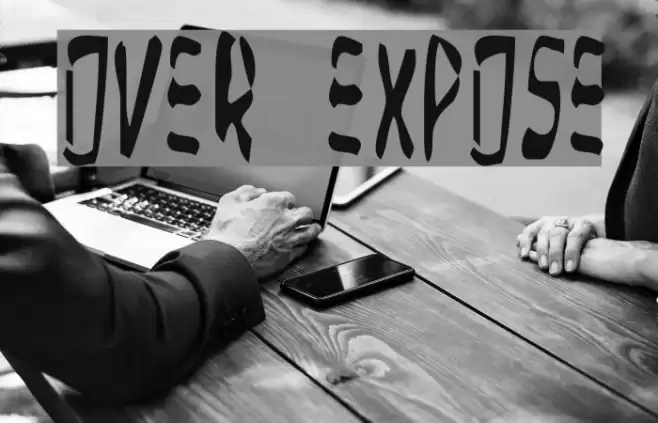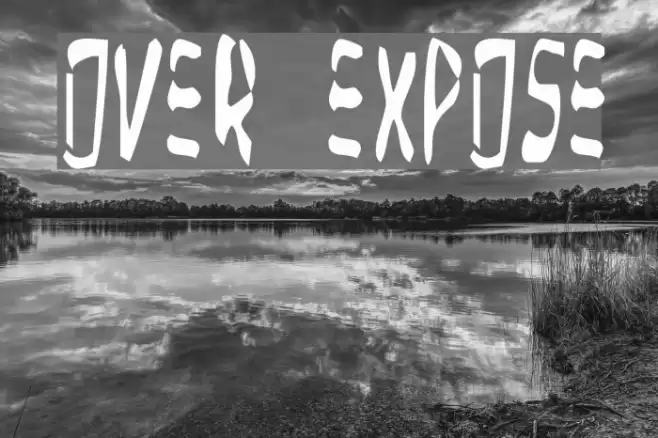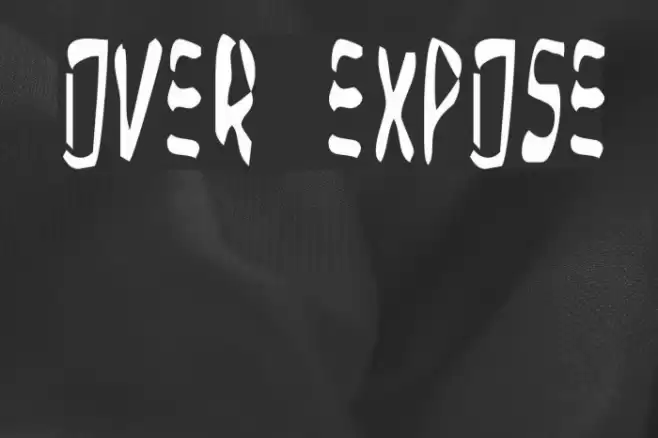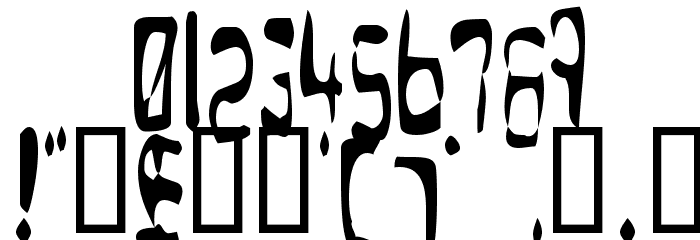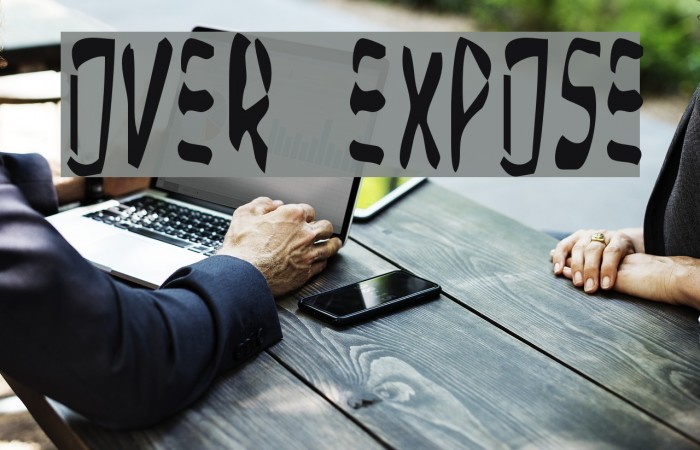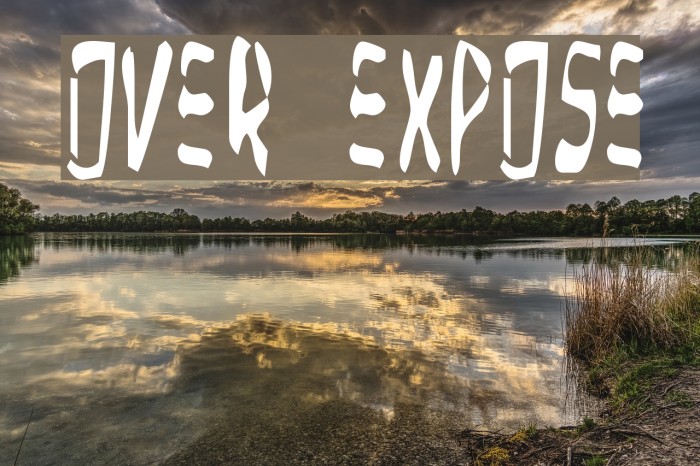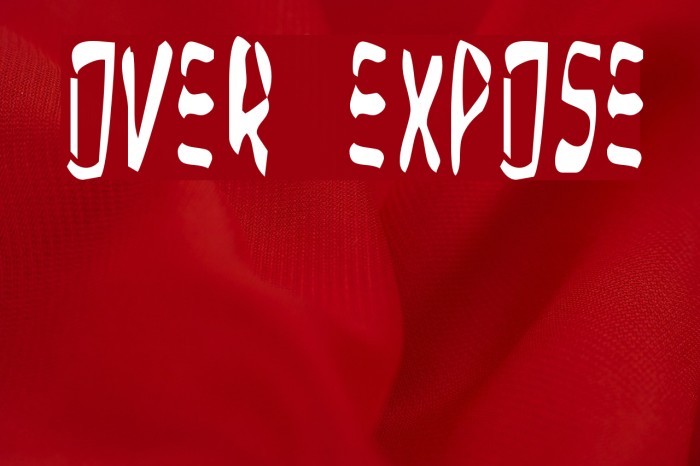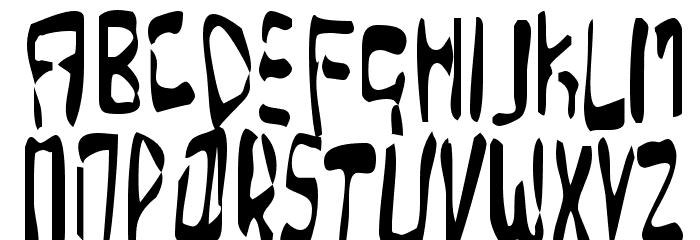
Over Expose Font
Over Expose Description
This font features a highly stylized and abstract design, characterized by irregular, organic shapes that give it a unique and artistic appearance. The letters are bold and have a hand-drawn quality, with varying stroke thicknesses that create a dynamic and visually engaging texture. The uppercase and lowercase letters maintain a consistent style, while the numbers and special characters complement the overall aesthetic. This font's unconventional form makes it stand out, offering a creative and modern twist on traditional typography.
A bold, abstract font with an artistic, hand-drawn style from Capitals fonts.
- Proposed Projects: Ideal for creative projects such as album covers, posters, and branding materials that require a distinctive and artistic touch.